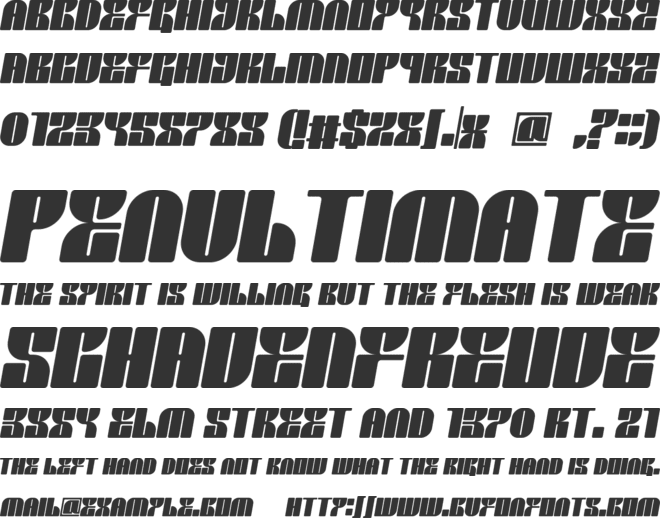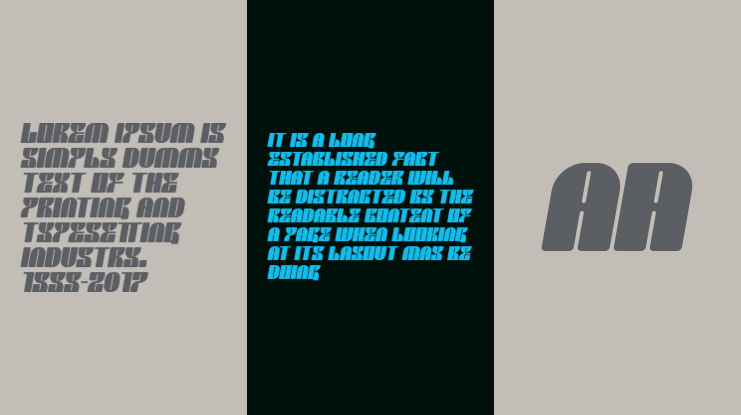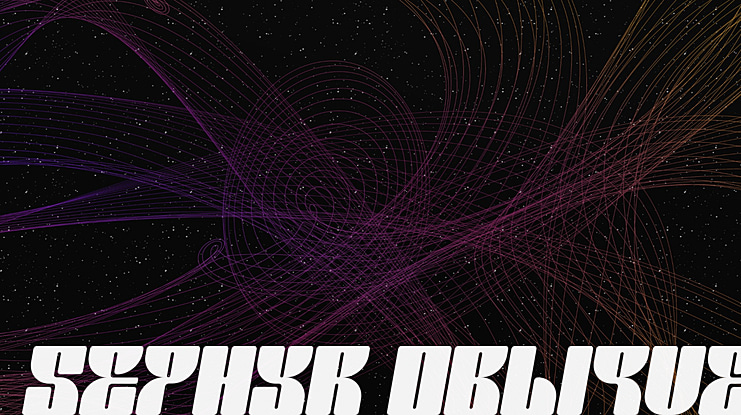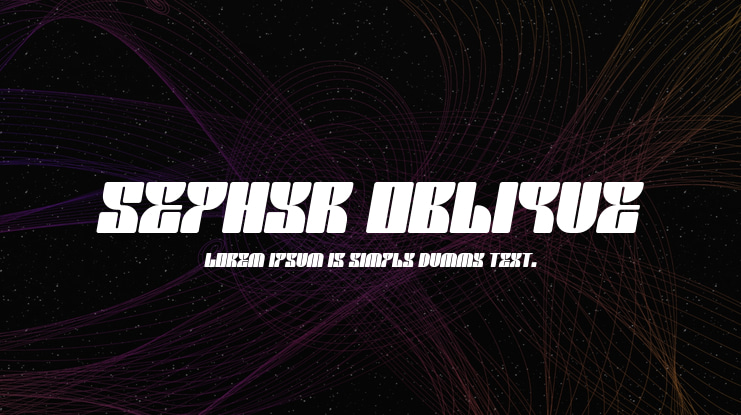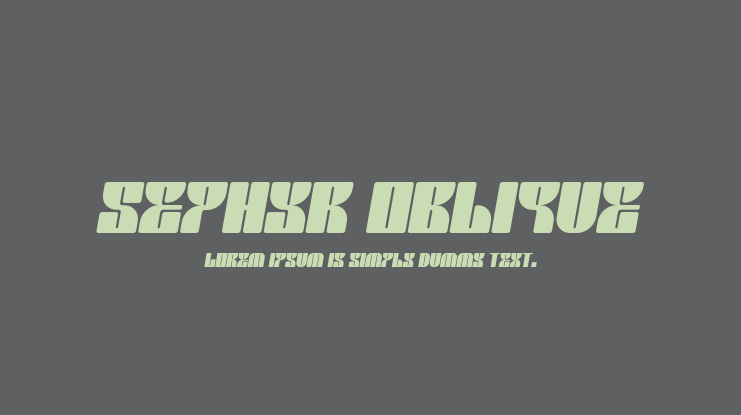
Sephyr Oblique Font Family
This is a free display typeface by Julpik. This typeface has bold body,rounded edges, and available in 2 style, regular and oblique.
This typeface contains alphabets, numbers, symbols, and punctuations. The alphabets has variations based on uppercase or lowercase letter that you type and some letters have alternate characters.
This typeface is suitable for title design, Y2K logotype, racing logotype, sticker design, clothing design, and many more.